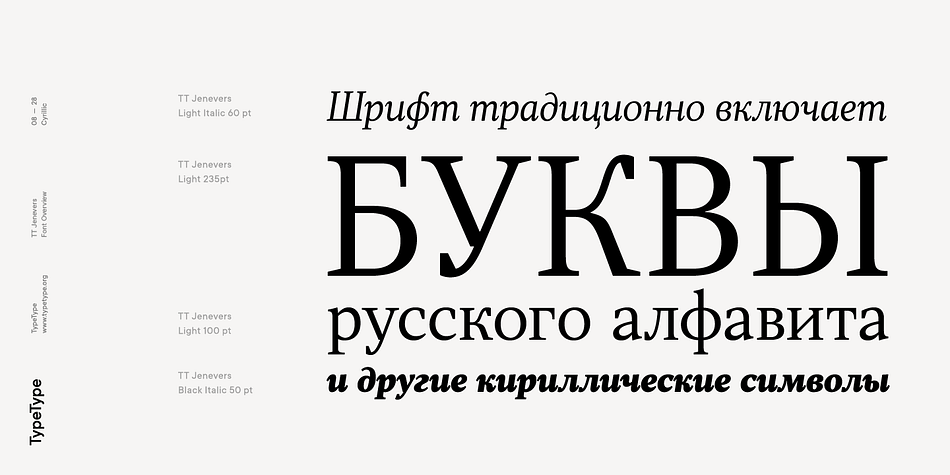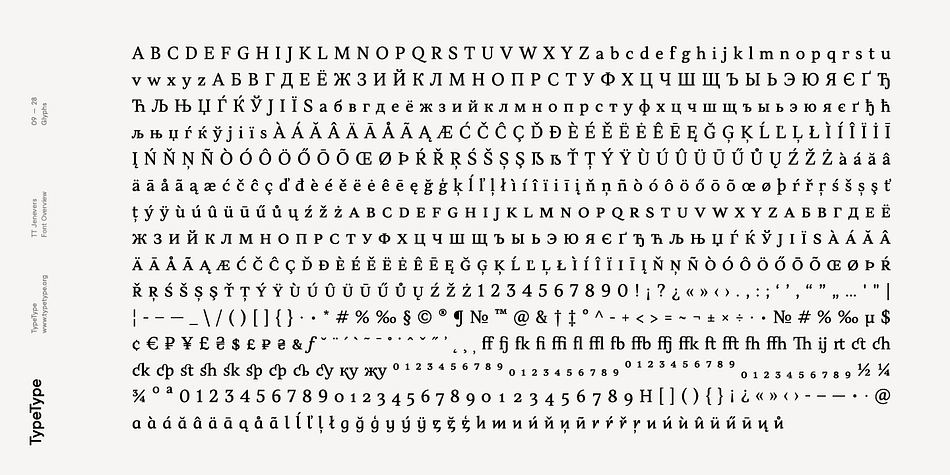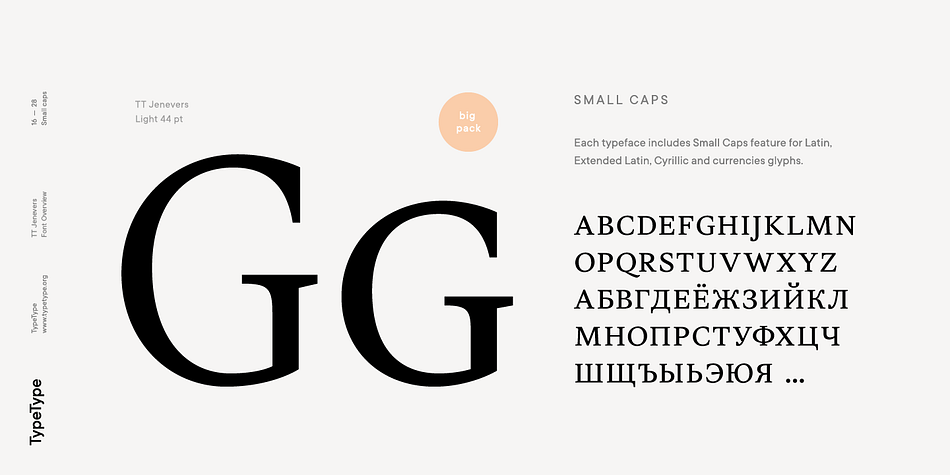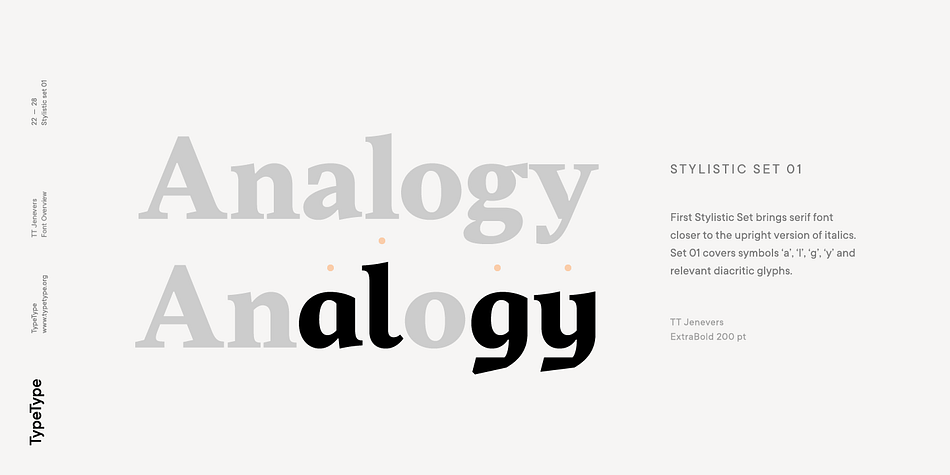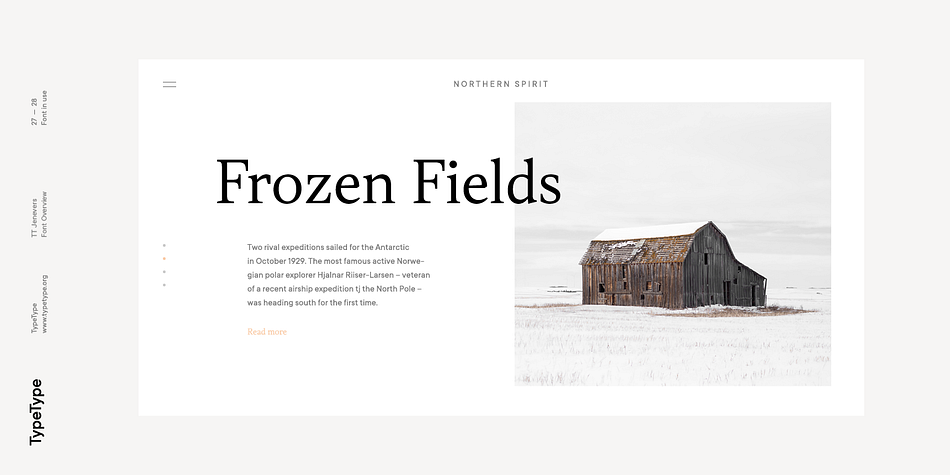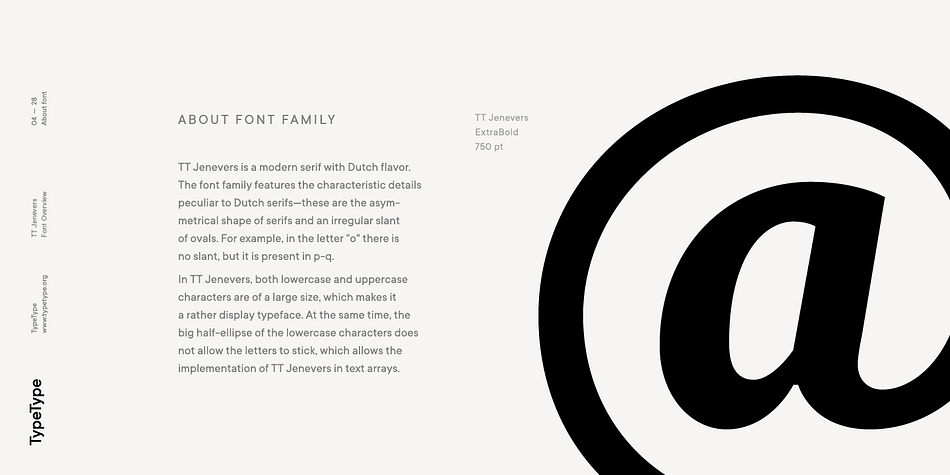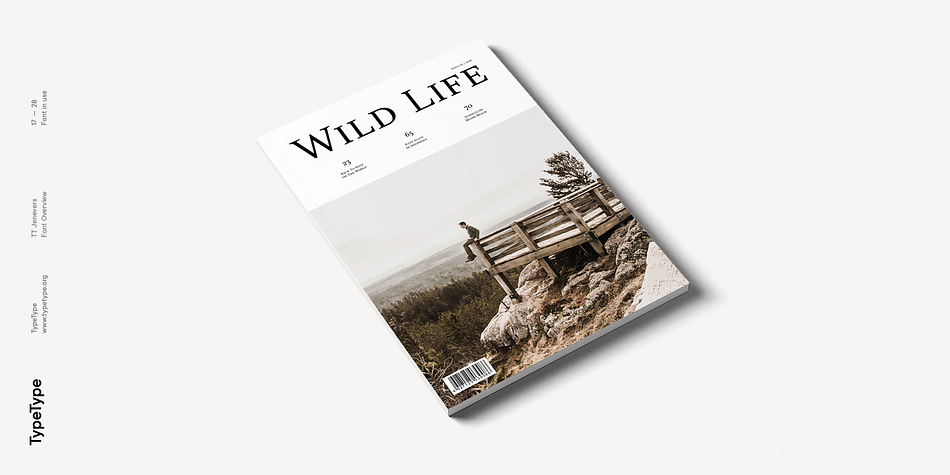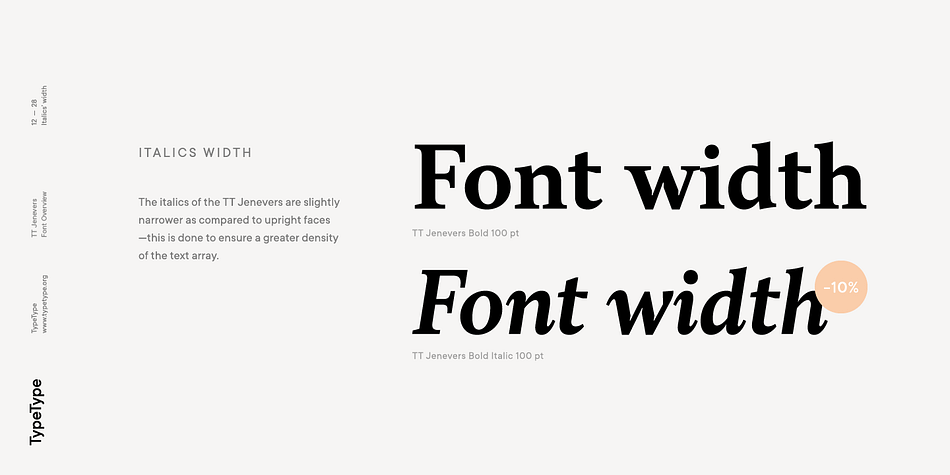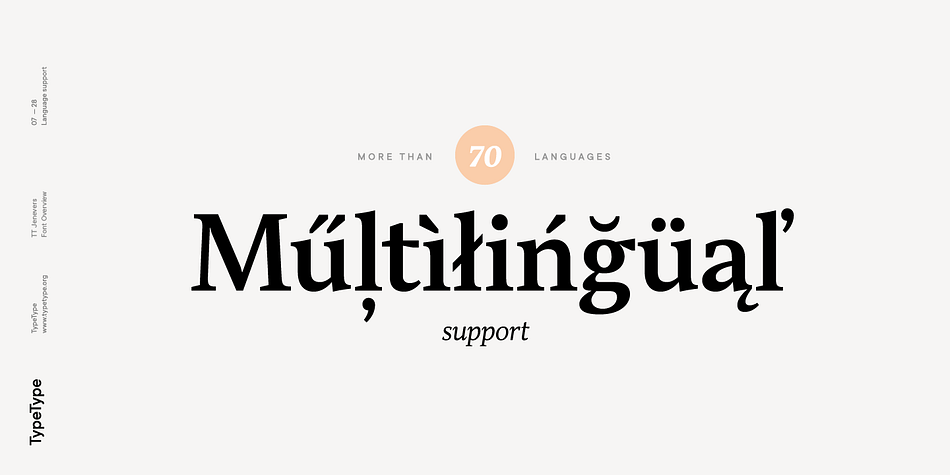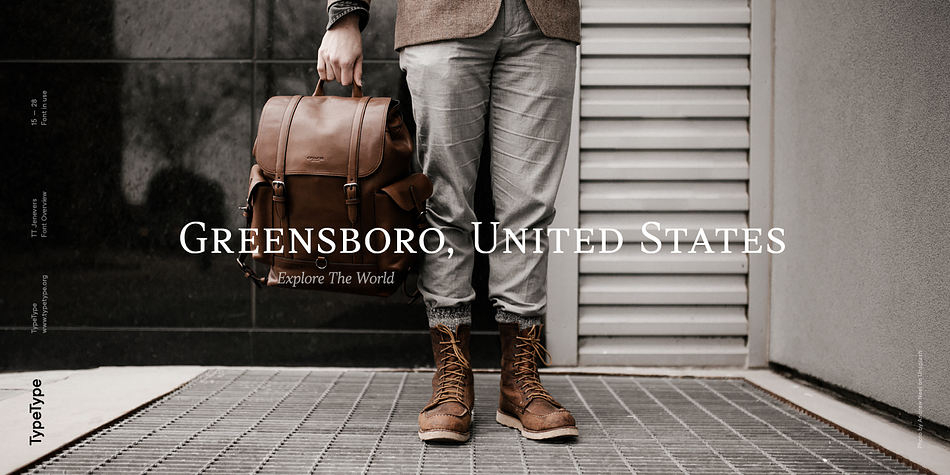
Designed by Ivan Gladkikh, Nadezhda Polomoshnova and Vika Usmanova, TT Jenevers is a serif font family. This typeface has twelve styles and was published by Typetype.
TT Jenevers is a modern serif with Dutch flavor. The font family features the characteristic details peculiar to Dutch serifs—these are the asymmetrical shape of serifs and an irregular slant of ovals. For example, in the letter “o” there is no slant, but it is present in p-q. In TT Jenevers, both lowercase and uppercase characters are of a large size, which makes it a rather display typeface. At the same time, the big half-ellipse of the lowercase characters does not allow the letters to stick, which allows the implementation of TT Jenevers in text arrays. The italics of the TT Jenevers are slightly narrower as compared to upright faces—this is done to ensure a greater density of the text array.
TT Jenevers font family consists of 12 fonts (6 upright and 6 true Italics), each of which has more than 740 characters. The typefaces include small capitals for Cyrillic and Latin alphabets, 33 ligatures, standard and old-style figures, and stylistic alternates. We have prepared two dissimilar stylistic sets, which allow changing the nature of TT Jenevers to a more hand-written one, or adding a futuristic touch to the typeface. In addition, you can find a large number of other useful features in TT Jenevers: ordn, case, c2sc, smcp, frac, sups, sinf, numr, dnom, onum, tnum, pnum, lnum, liga, dlig, salt, ss01, ss02, zero.